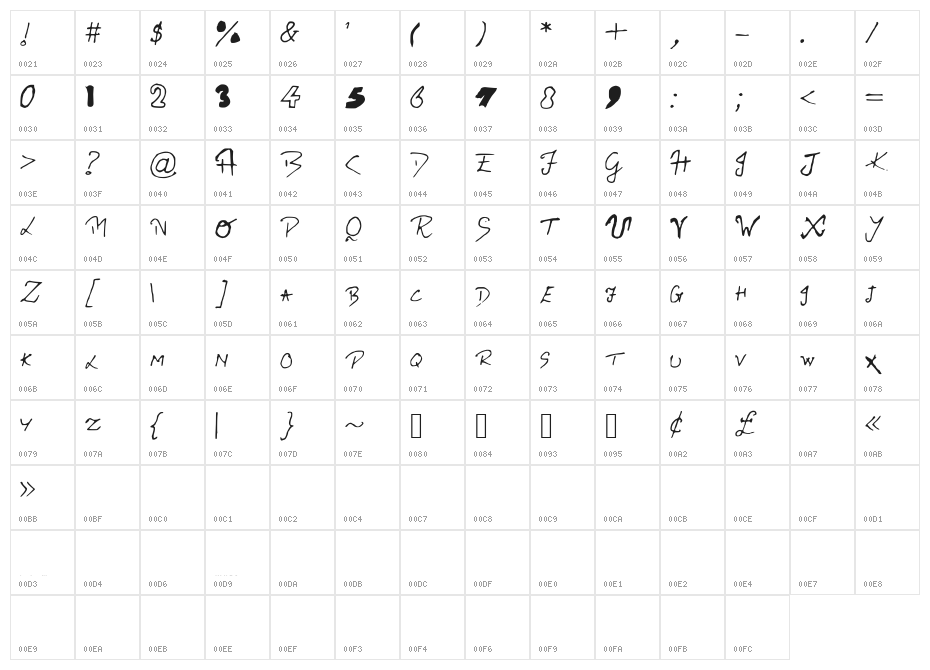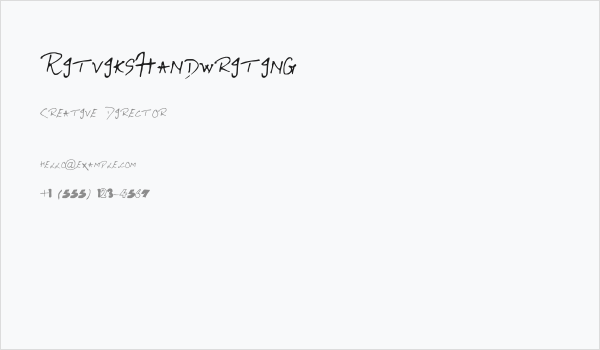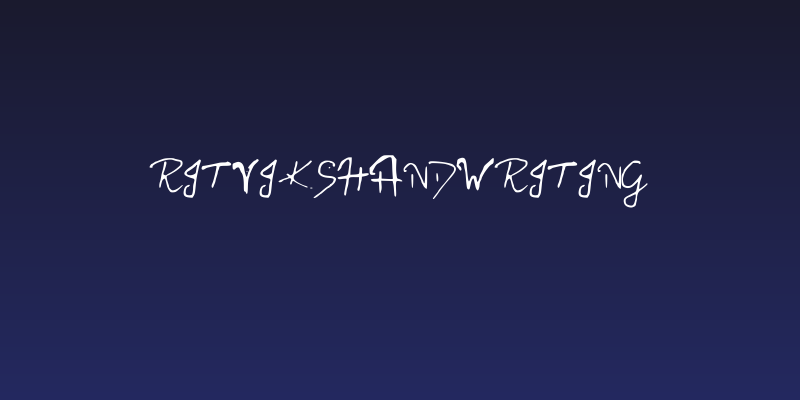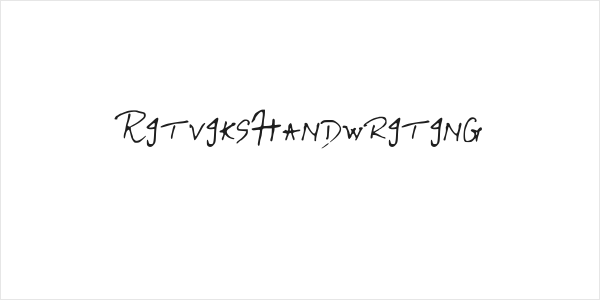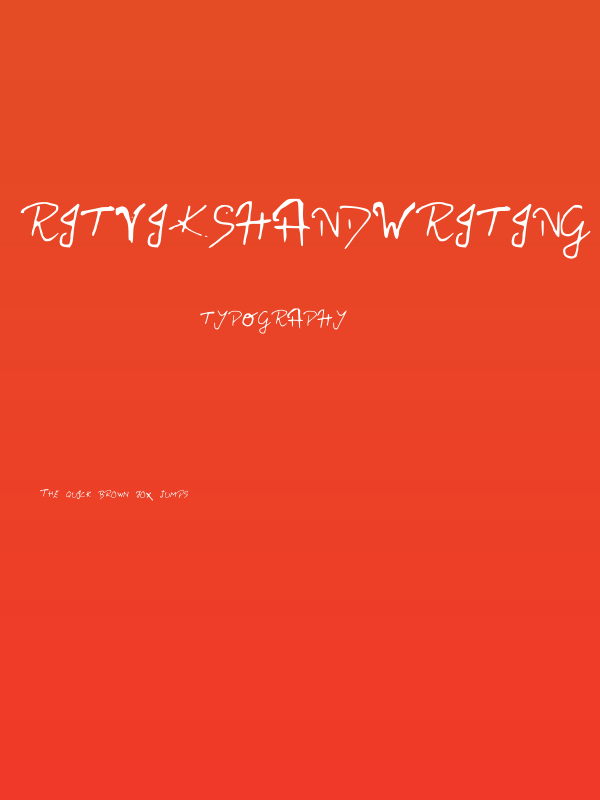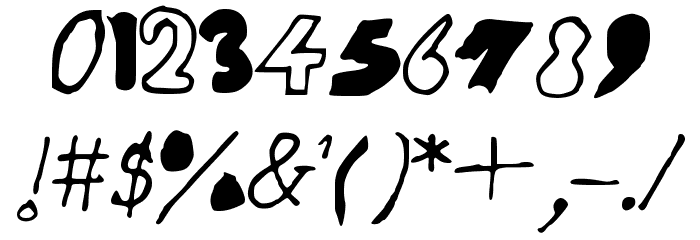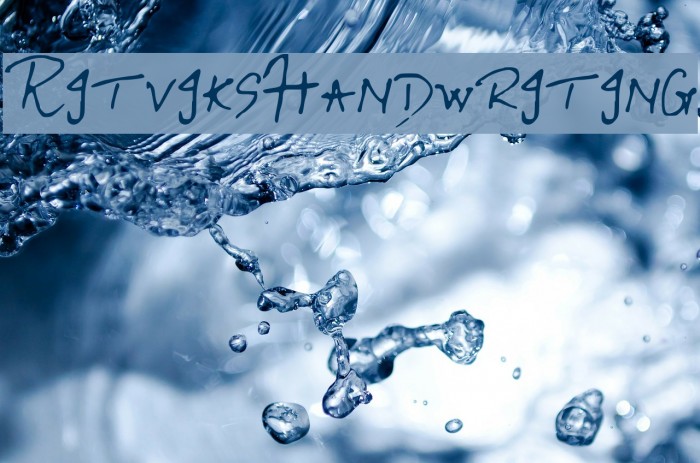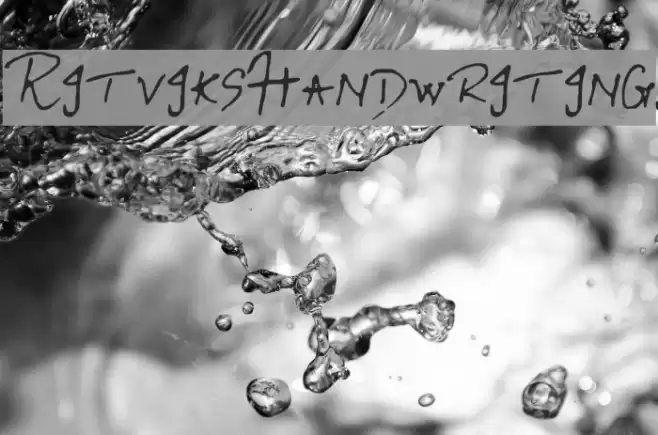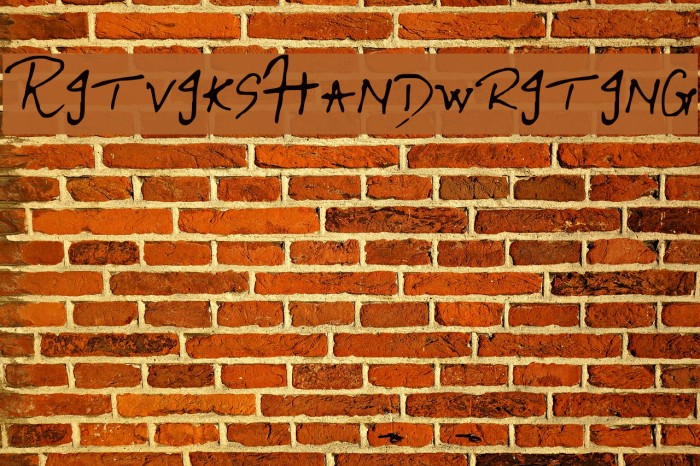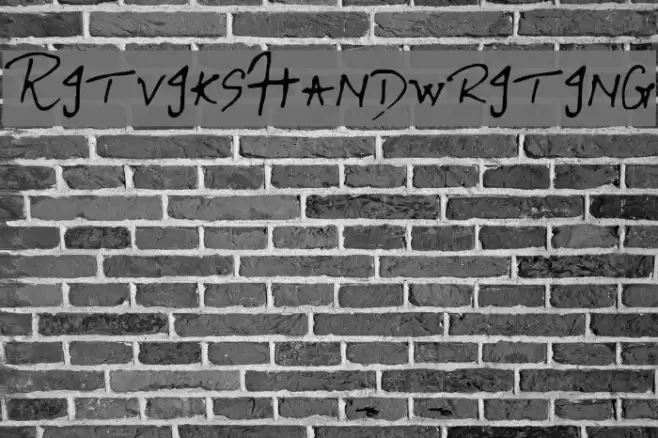
RitviksHandwriting Font
RitviksHandwriting Description
This font exudes a casual and artistic flair, reminiscent of expressive handwriting with a touch of spontaneity. The characters are fluid and dynamic, with varying stroke widths that give it a lively and energetic feel. Uppercase letters are bold and prominent, while lowercase letters maintain a consistent flow, enhancing the handwritten aesthetic. The numbers are distinct and playful, adding to the overall charm. Special characters are creatively designed, maintaining the font's unique style. This font is perfect for projects that require a personal touch, such as invitations, greeting cards, or artistic branding.
| Overall Style | Artistic, Casual |
| Use Case | Headlines, Artistic projects, Personal branding |
| Proposed Projects | Ideal for invitations, greeting cards, artistic branding, and creative projects. |